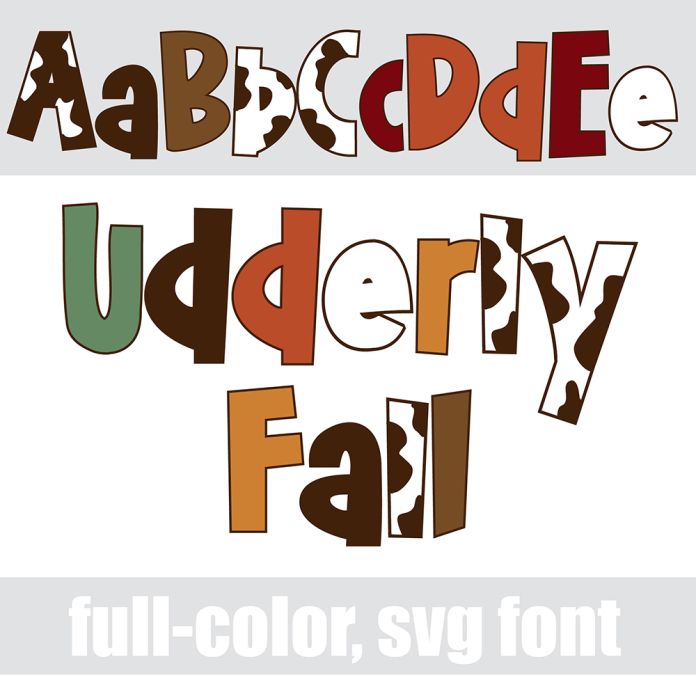
This full-color font features cow print and an autumn color palette and whimsical sans serif lettering. There is an alt version you can access through your system's character map that contains additional colors of all the letters. This font works best for titles, displays, posters and more. Please note color fonts will show as black in non compatible programs. This font type is compatible with Silhouette Studio..